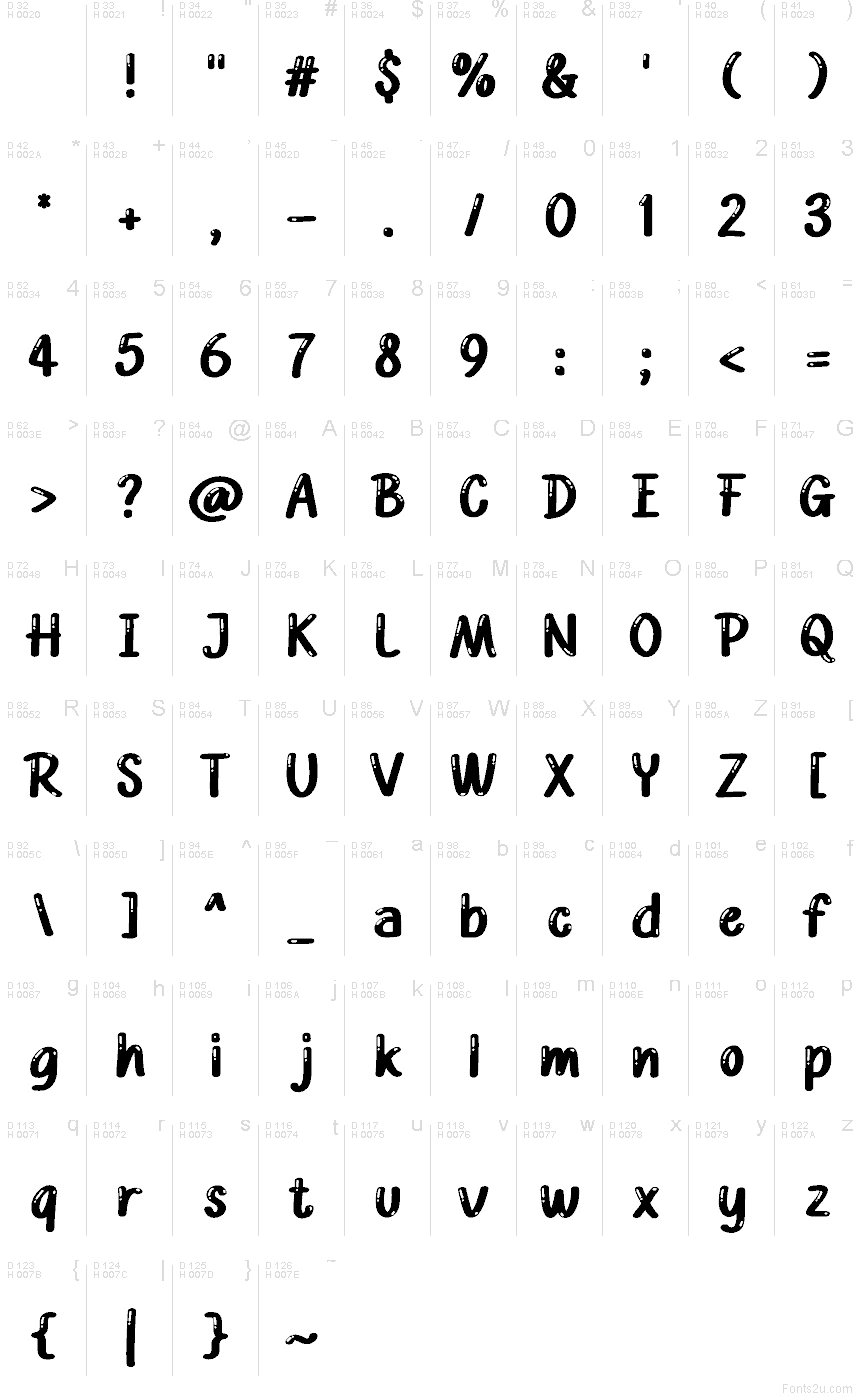
Due Mining by Hello Good Studio is a free comic display font with chunky, hand-drawn letters and shiny cutout highlights that make the shapes feel glossy and playful. The rounded forms, uneven bounce, and slightly blobby rhythm give it a cartoon sign feel rather than a slick comic-book edge.
It fits youth branding, snack packaging, party invitations, sticker sets, and cheerful poster headlines where a little wobble helps the message feel friendly. As a free font, it also works well for short title cards, cover lines, and logo-style wordmarks, since those bright highlight details give even brief words a lively, toy-like presence.